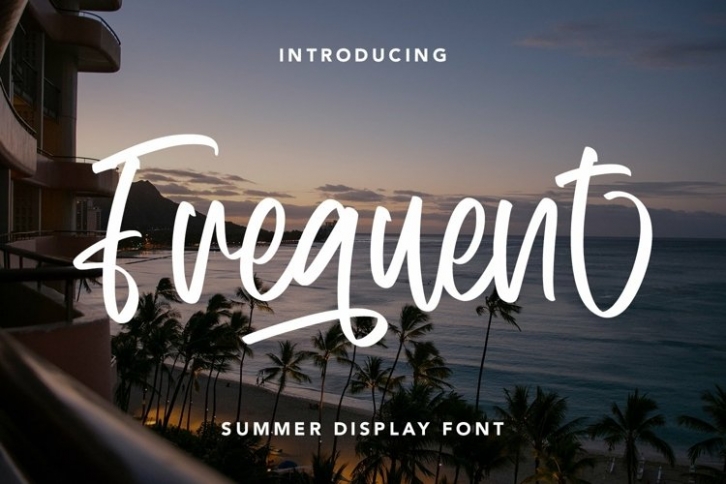
Web Frequent is a gorgeous font that was realeased on August 30, 2021. The font can be used in many style contexts and design environments. Perfect for invitations, magazines, websites, logos, and more! It was designed by plusstore and the file size is 5.2 MB. Thanks for checking out this font!